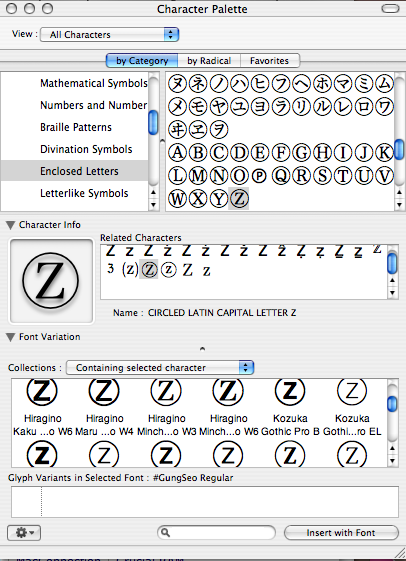
I am trying to find a free "enclosed letter" font for use in a wedding bulletin (to indicate where the pastor, congregation, bride and groom speak using 'P', 'C', 'B' and 'G'). By "enclosed letter" I mean where the character is inversed against a rounded-rectangle; Mac OS X includes a font similar to this for numbers. I am looking for letters.
Does anyone have a recommendation? I checked the guides for free fonts and was not able to find something like this.
Do you have a sample of this at all? I'm confused. 😕
If you go to Character palette > Symbols - under there you'll find Enclosed Letters. Scroll past all the oriental enclosed letters and you'll find what you want. There's a selection of fonts as enclosed letters.
Is that dependent on the fonts I have installed? I tried searching the Character palette but only found enclosed numbers and enclosed asian characters. I will check again this evening, but the only fonts I have are those that (1) came with Tiger or installed with (2) MS Office 2004 or (3) iWork '08.
I'm not sure, I knew I had seen them there and went looking. There's a lot of oriental enclosed letters and you have to scroll past them before coming to the ones you need.Even then a lot of them have oriental names. I'm enclosing a screen shot - hope it helps.